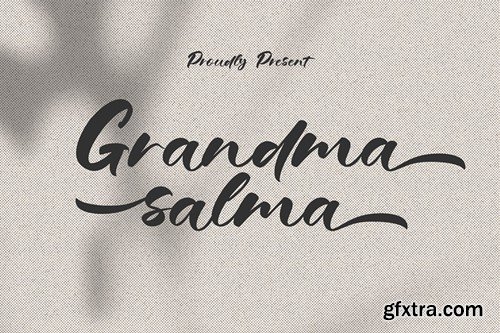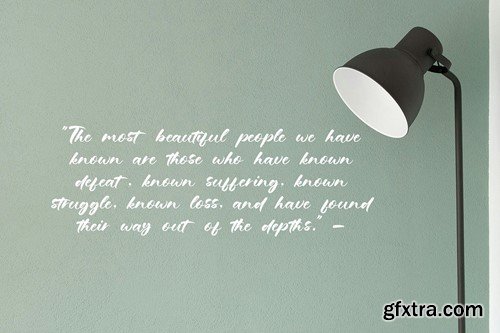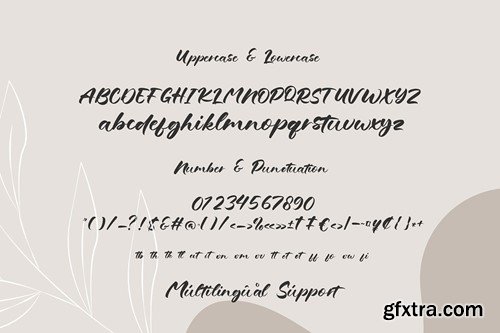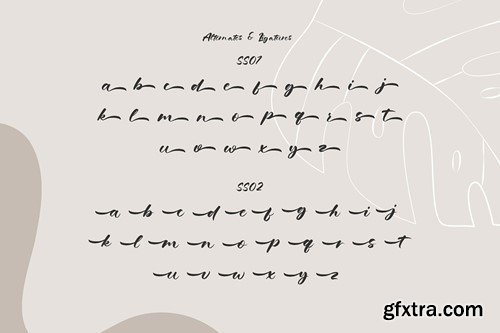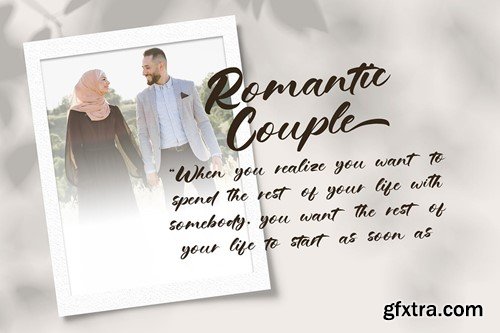
萨尔玛奶奶 - 手书字体 8U7XJME
Grandma Salma - Hand Lettered Typeface 8U7XJME
Grandma Salma - Hand Lettered Typeface
Grandma Salma is a Hand Lettered Typeface font inspired by the warmth and love of a grandmother. This font has a character that is friendly, gentle, and full of tenderness, just like a grandmother's hug that always feels comforting.
Perfect for:
• Wedding invitations, birthday cards, and other family events
• Stationery, greeting cards, and personal journals
• Vintage-themed posters, banners, and decorations
Features:
• Unique and charming uppercase and lowercase letters
• Matching numbers and symbols
• Multi-language support